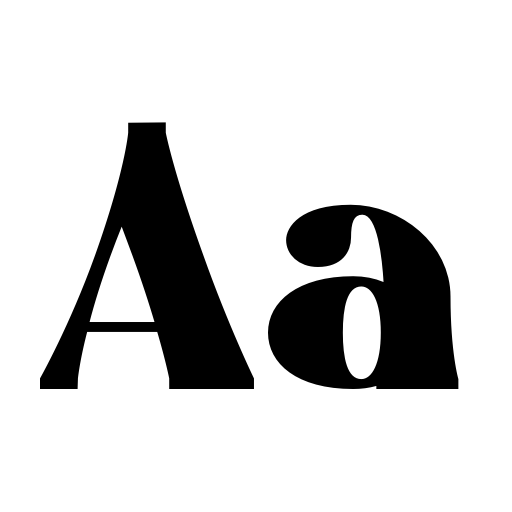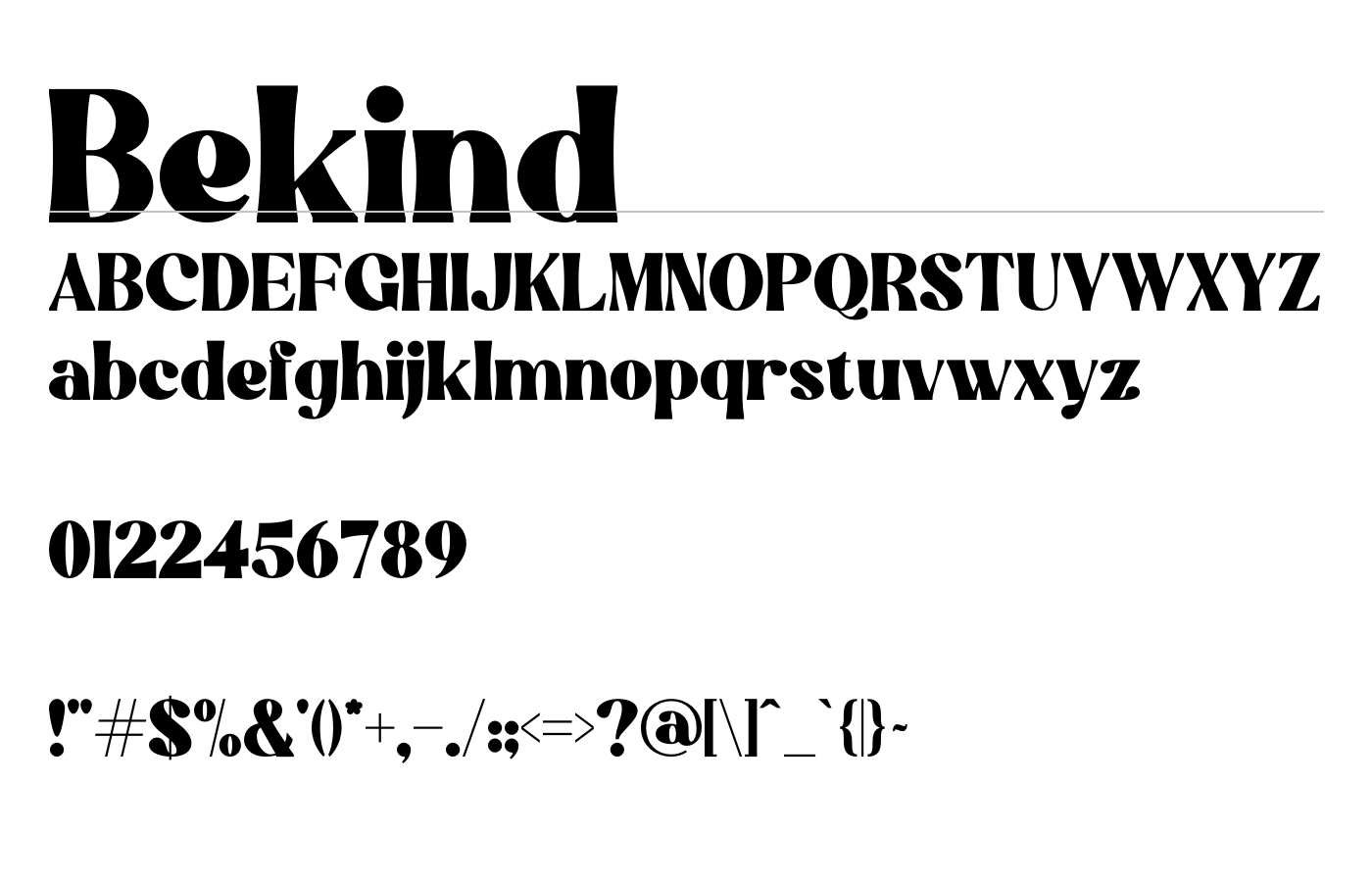
Bekind Font is a bold serif typeface with a playful yet sophisticated charm, featuring strong contrast between thick and thin strokes and slightly condensed letterforms. Its unique shapes and sturdy serifs give it a vintage-inspired character that works well for eye-catching headlines, branding, and editorial designs, infusing a sense of personality and warmth. This font is ideal for projects that want to balance elegance with approachability, especially in fashion, packaging, and creative print media.
Bekind Font
About Bekind Font